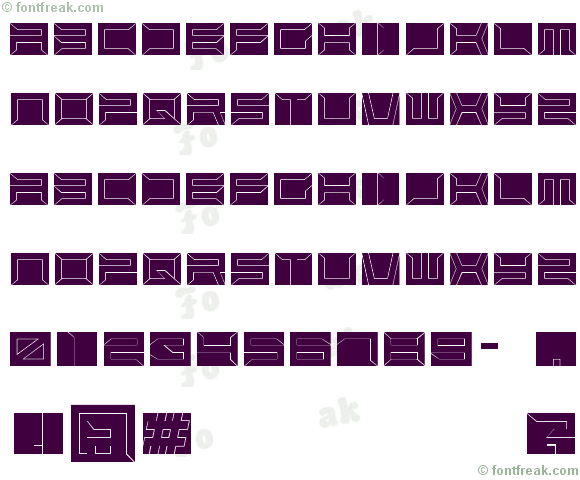
Loonaria
About Loonaria
Loonaria is a striking display font designed by Roland Huse, characterized by its unique geometric style that combines modern aesthetics with an artistic flair. As a decorative typeface, Loonaria stands out with its bold stroke weight and distinctive angular forms, which give it a futuristic feel. The font features a low contrast between thick and thin strokes, creating an eye-catching visual impact that is both playful and sophisticated. The spacing is well-balanced, allowing for legibility while enhancing the overall design.
This font is ideal for a variety of creative applications. It shines in contexts such as movie posters, where its bold nature can capture attention and convey a sense of drama. Additionally, Loonaria is perfect for branding projects, as its unique look can help businesses establish a memorable identity. It also works well for event promotions, such as music festivals, where a modern and energetic vibe is desired. For content creators and graphic designers, Loonaria offers an opportunity to make a statement in social media graphics, ensuring that their visuals stand out in crowded feeds.
What sets Loonaria apart is its ability to blend artistic creativity with functional design. Its geometric shapes and confident lines not only draw the eye but also evoke a sense of innovation and originality. Whether for print or digital media, Loonaria is a font that promises to leave a lasting impression.
Author Roland Huse